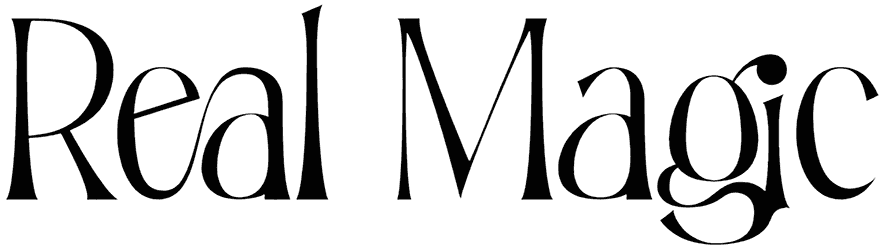
Real Magic Font
How can you present the original form better than modern and chic writing? Real Magic as a serif font can offer this opportunity and design the texts that you fancy without any doubt.
Real Magic designed primarily to bring out a modern and stylish view of what you make. This font contains upper & lowercase characters. Its light weights are well-suited for body text.